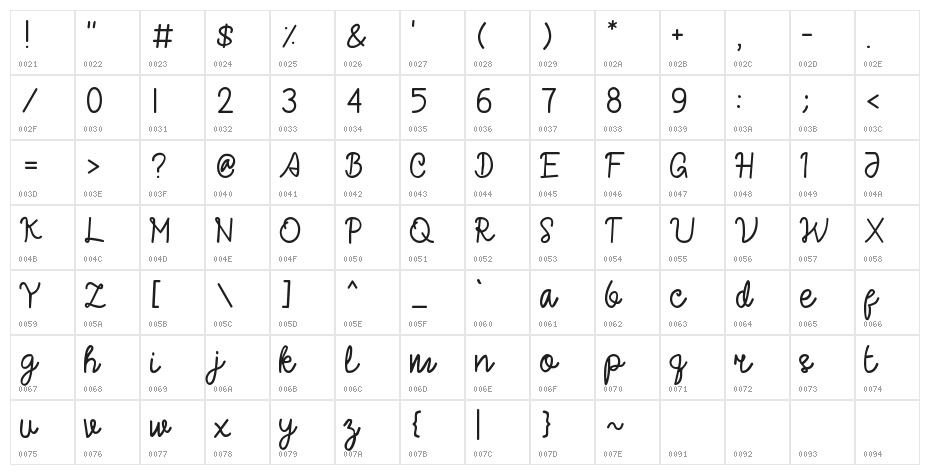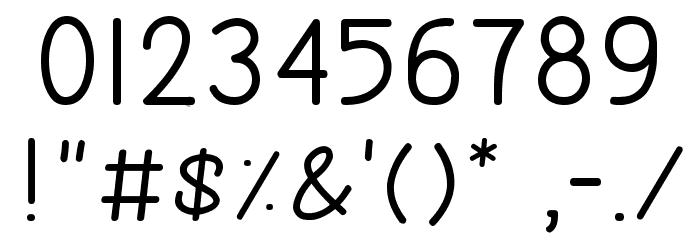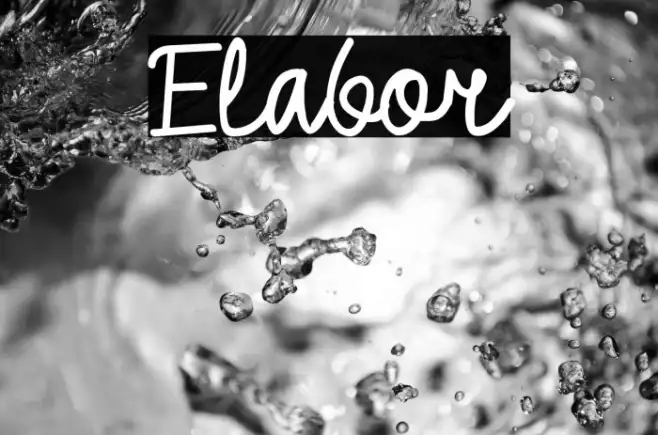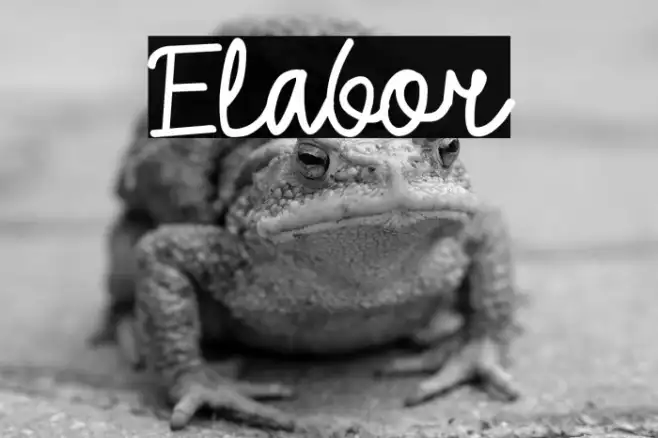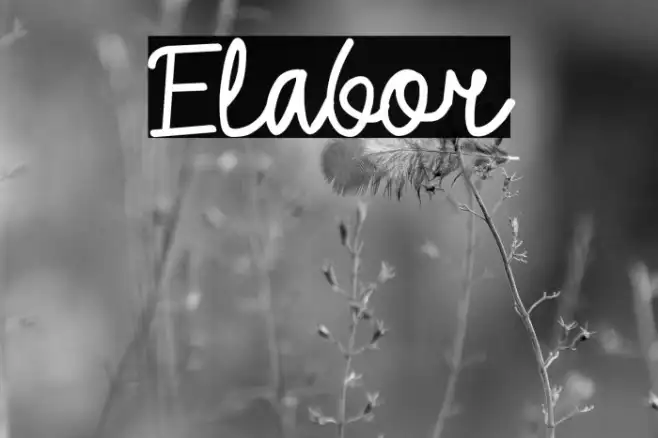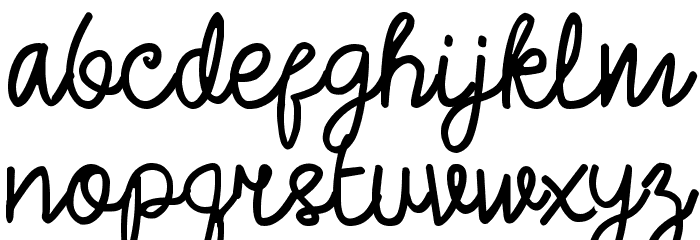
Elabor Font
Elabor Description
This font features a playful and casual handwritten style, characterized by smooth, flowing lines and a consistent stroke width. The uppercase letters are slightly more structured, while the lowercase letters exhibit a more cursive and connected appearance, adding a personal touch. The numerals are clear and legible, maintaining the same playful aesthetic. Special characters are well-integrated, ensuring versatility in various design contexts. This font's overall appearance is friendly and approachable, making it suitable for projects that require a personal or informal tone.